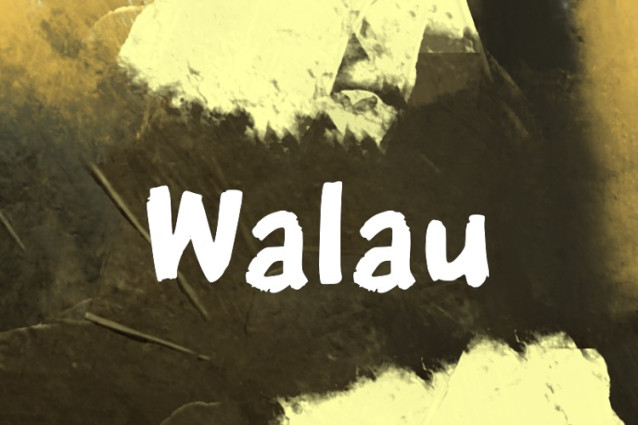
Walau Font
Walau Font is a chunky, comic, and cartoon display font. With its neat and joyful personality, this font will enhance any project you wish to create!